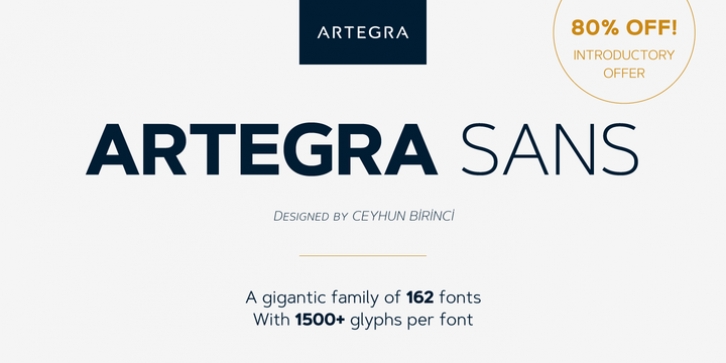
Artegra Sans was designed between 2014 - 2017 by the Turkish type designer Ceyhun Birinci. The project started with the idea of making one of the most comprehensive typeface families in the world, while maintaining top quality in design. Artegra Sans does exactly that, offering quality in quantity in a total of 162 fonts.
There are 9 weights along with their matching true italics in normal, condensed and extended widths. More than 1500 glyphs per font offers a wide range of language support from Latin to Cyrillic languages, as well as many Opentype features such as true small caps, stylistic alternates, ordinals, fractions, superscripts and subscripts. Separately created alternates and small caps versions of each font allows users to use these styles, even in software with no access to OpenType features.
Each glyph was designed with the utmost care to meet the highest quality expectations, making Artegra Sans a unique typeface not only in magnitude but in usefulness and readability as well. It's beautiful to look at and easy to read, thus can be used for both display and text purposes. It's a perfect choice for branding, magazines, posters, advertising, web and mobile application design, packaging design and more.